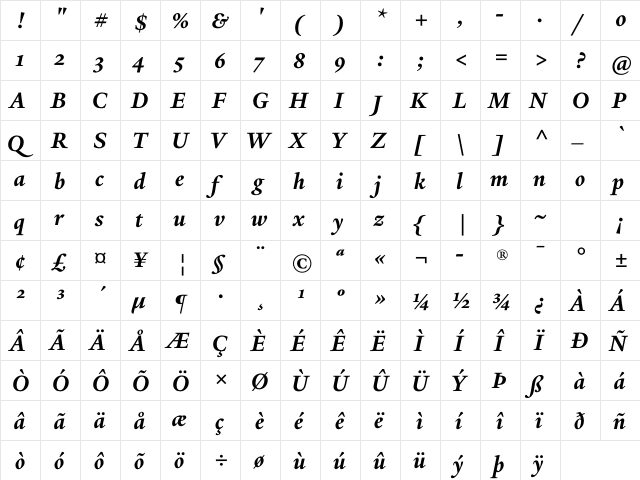
YaleCFF Bold Italic
Design Context for YaleCFF Typeface
YaleCFF offers clean, dependable letterforms without strong stylistic allegiance, making it a practical choice for designers who need flexibility. The slanted form adds forward momentum and visual energy. The heavy weight commands attention and anchors typographic hierarchies.
Pro Tip: Try YaleCFF for annotation and caption copy alongside an upright companion — the contrast in angle creates a dynamic but ordered typographic system.